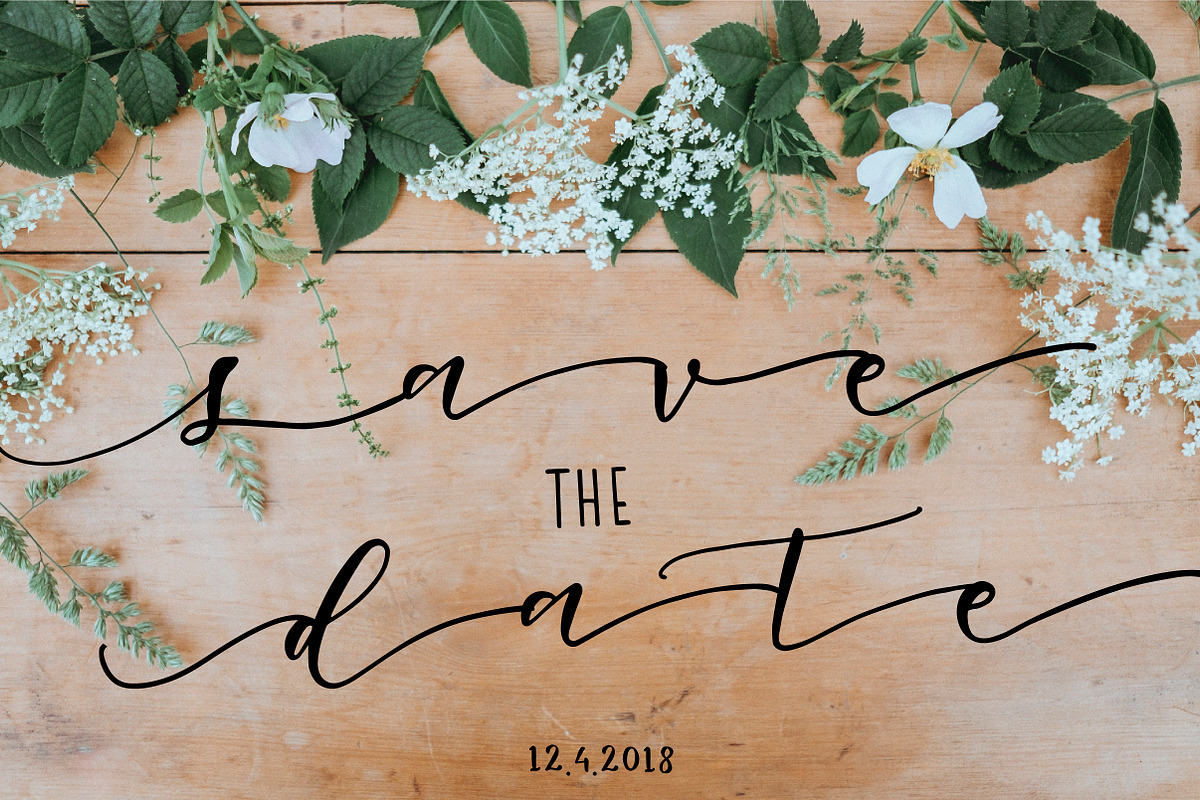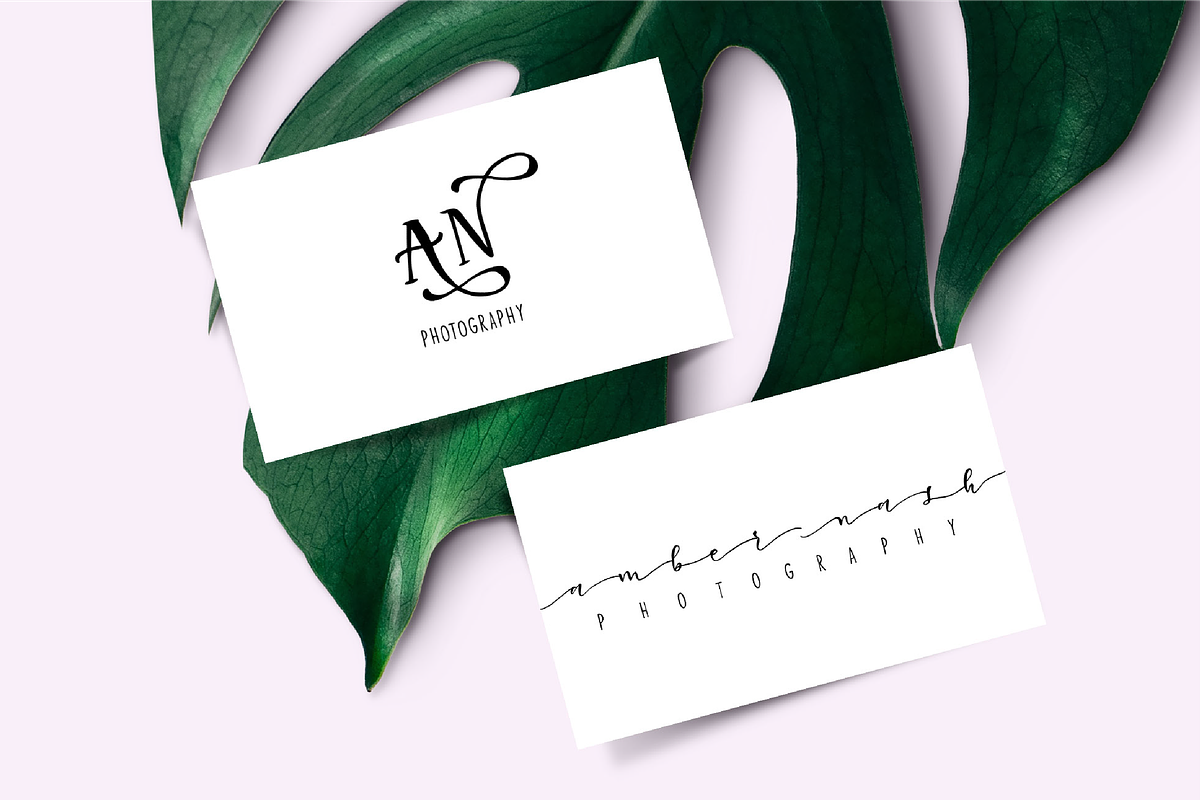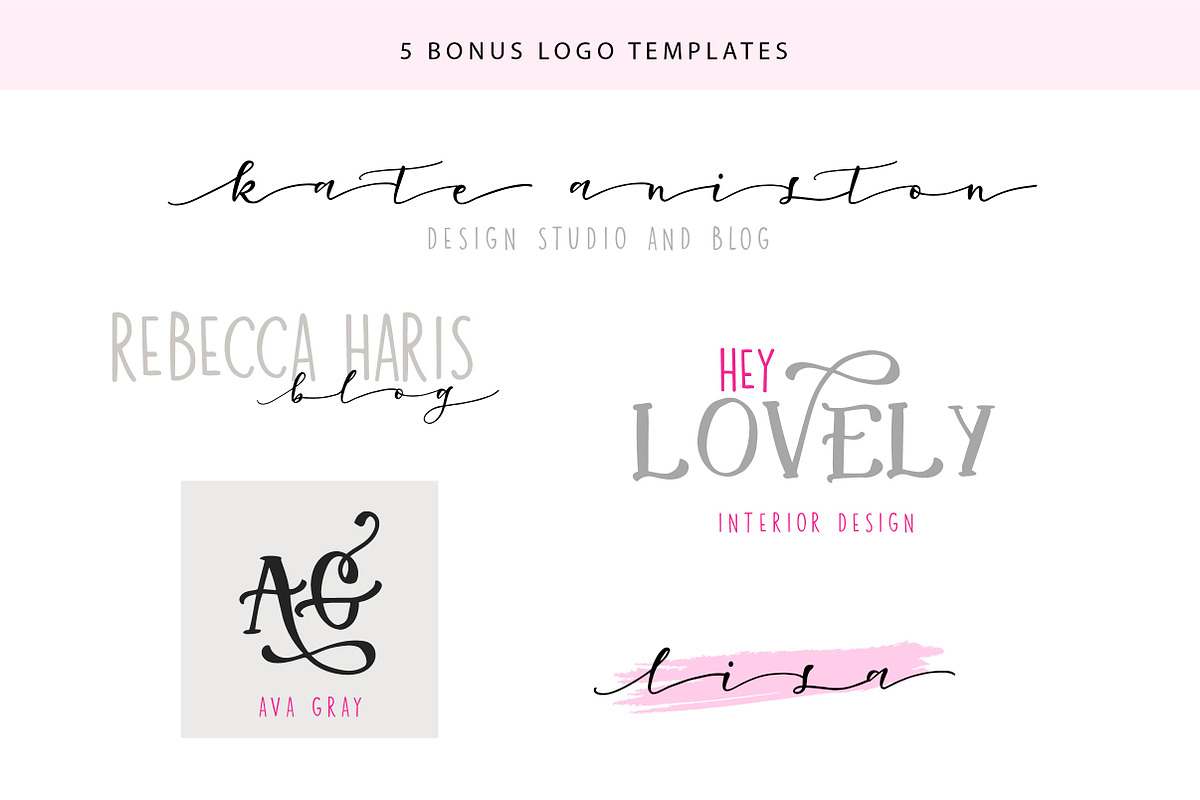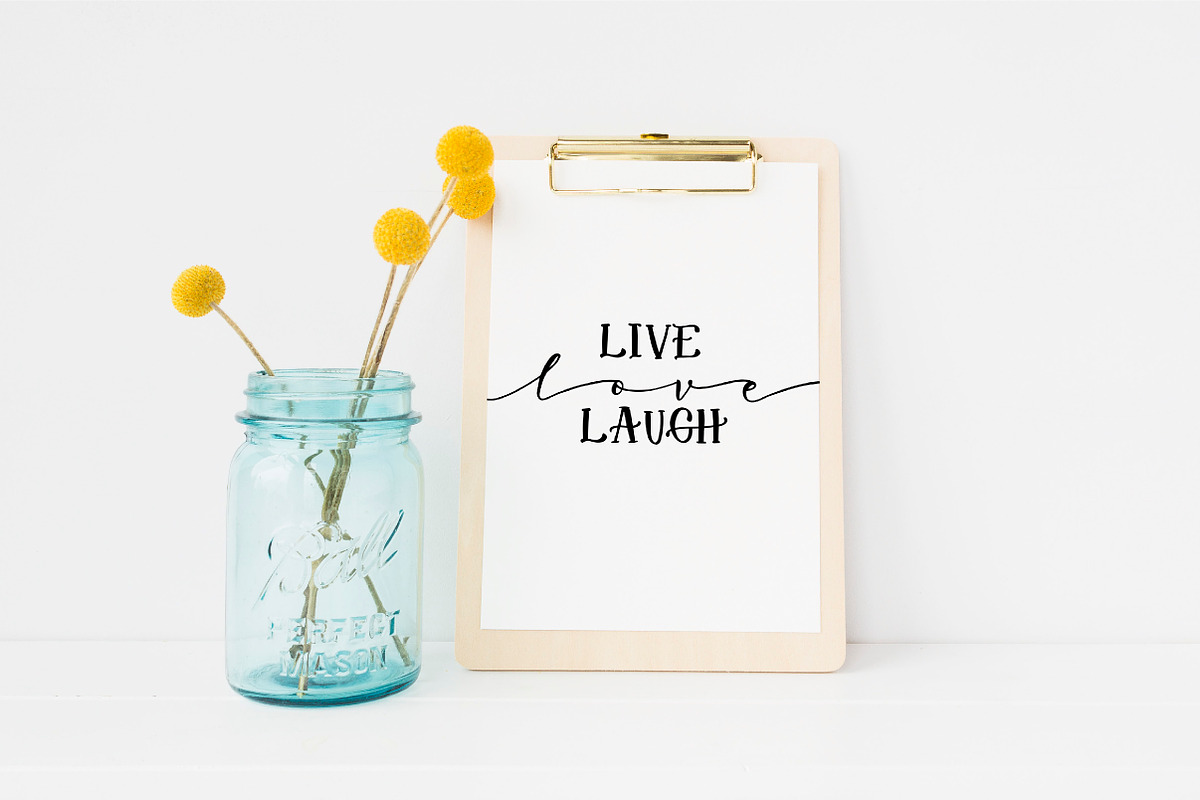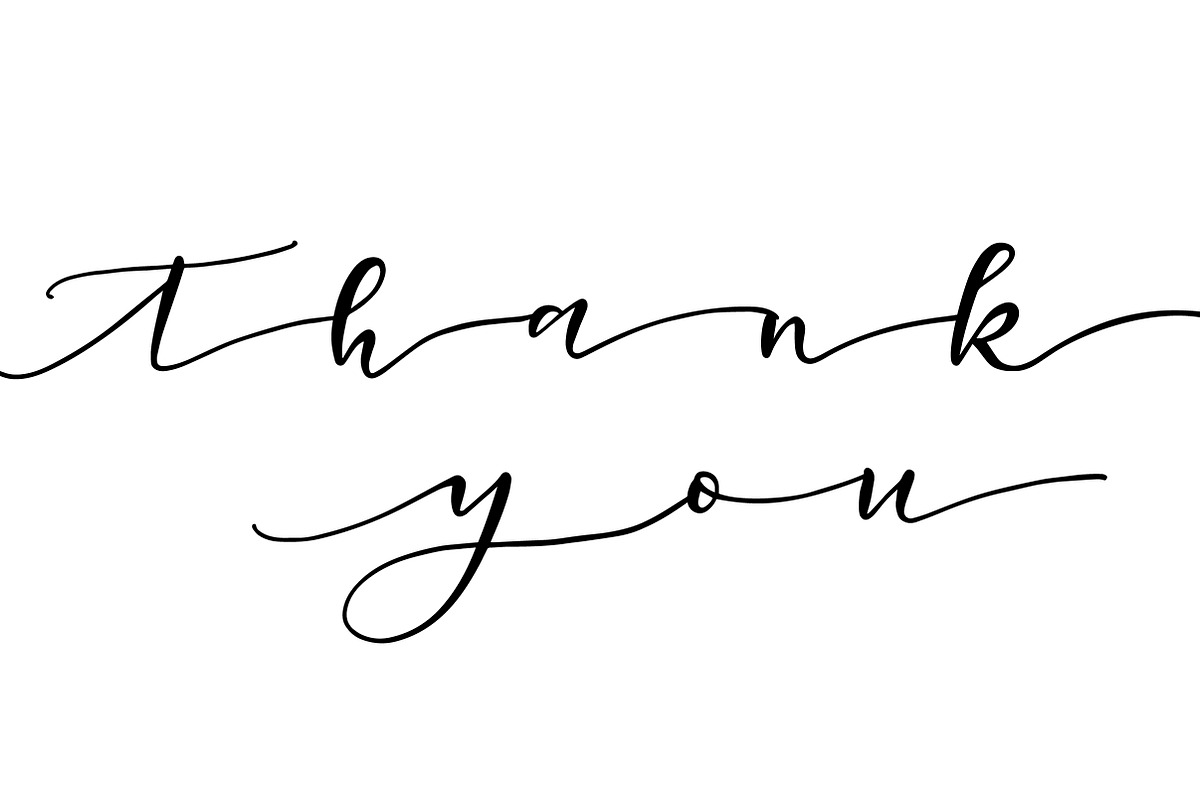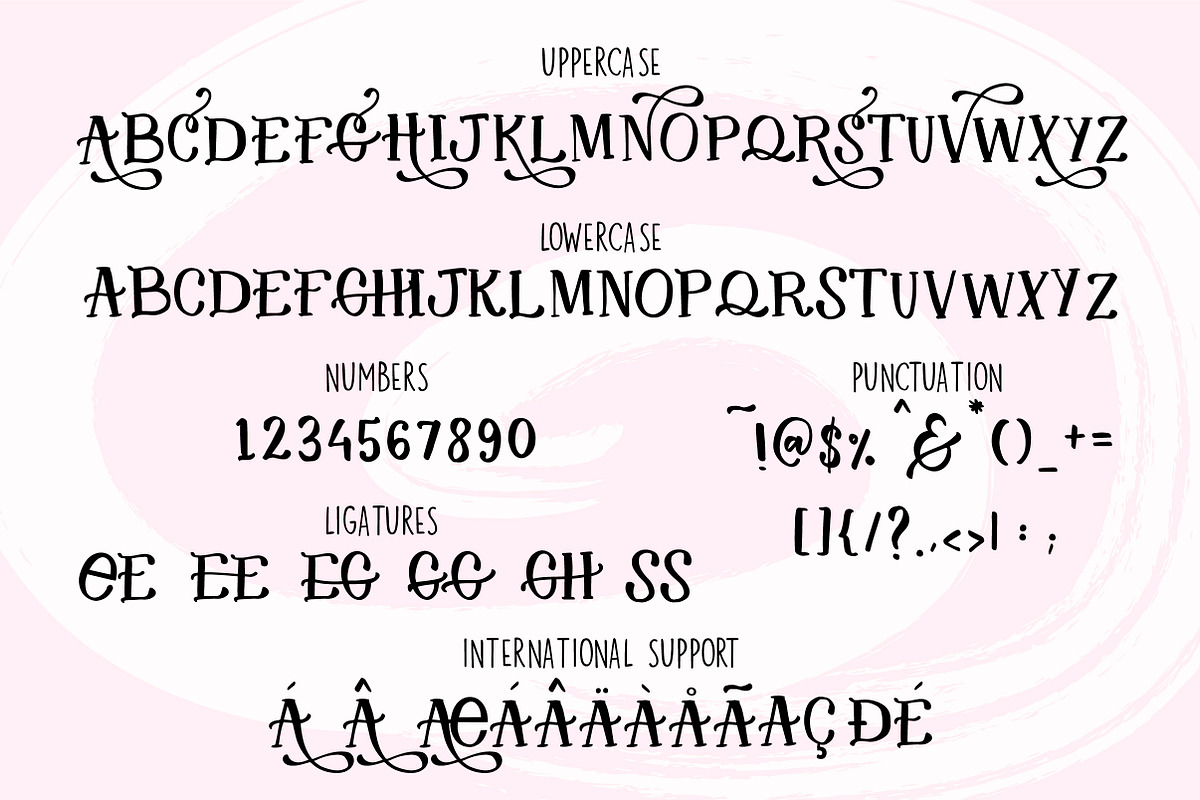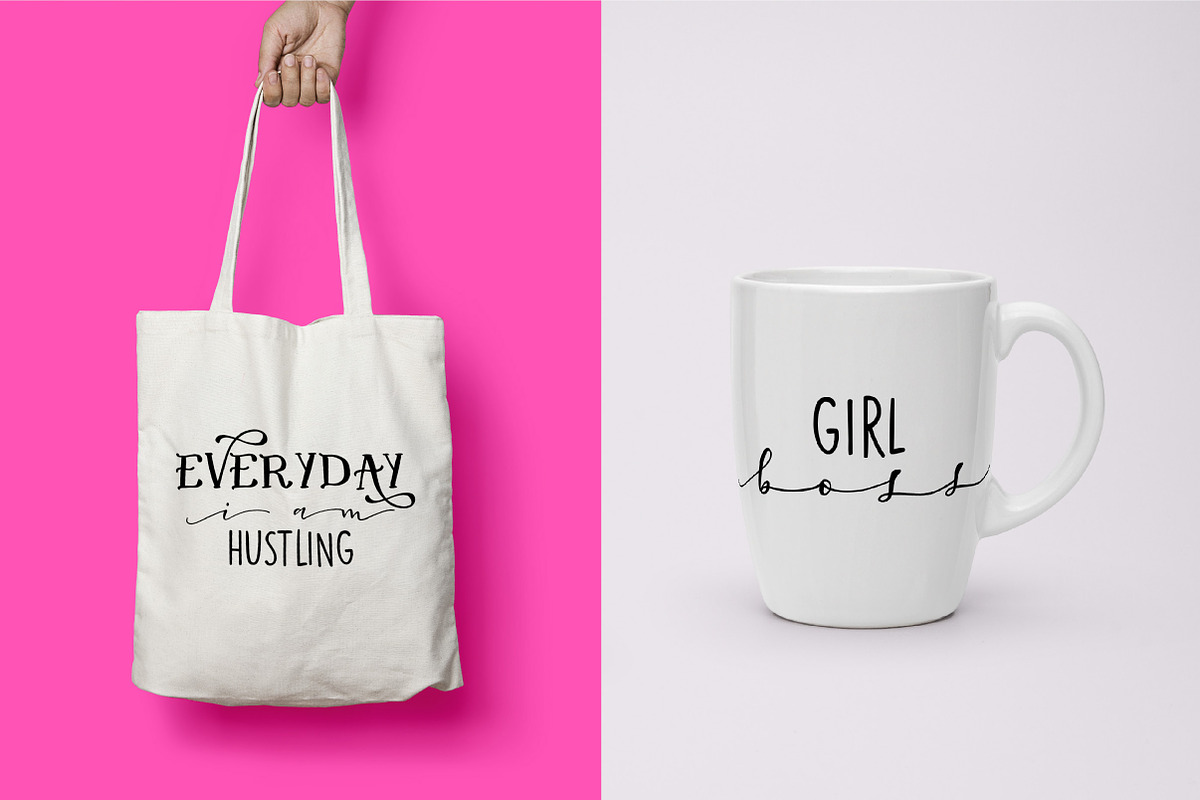
Oh Lovely Day Font Trio + Logos
Meet Oh Lovely Day font trio, a mini font bundle with a flourish-y serif style font, a flowy script font and a complimentary monoline sans serif font. The 3 fonts in this tiny bundle work together perfectly to help you create the perfect design for all your projects. They're perfect for packaging and branding projects as well prints, quotes, photo overlays, wedding projects, and so much more!
Oh Lovely Day Mono - a monoline sans serif font to perfectly compliment the other typefaces
- Oh Lovely Day Serif - contains ligatures to add a natural flow to your designs
- Oh Lovely Day Script - a flowly calligraphy script font